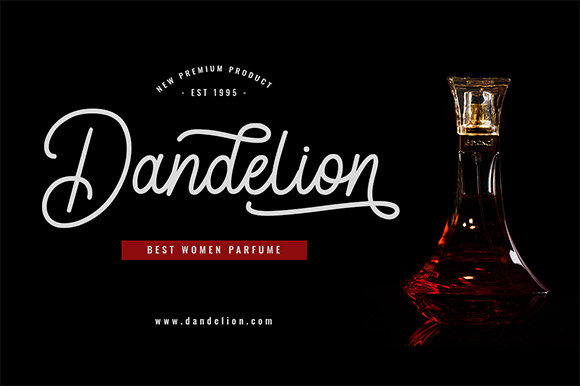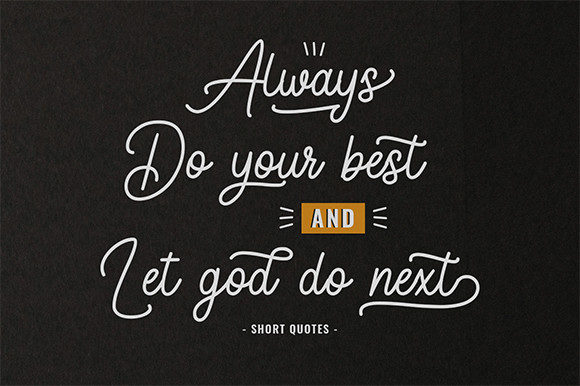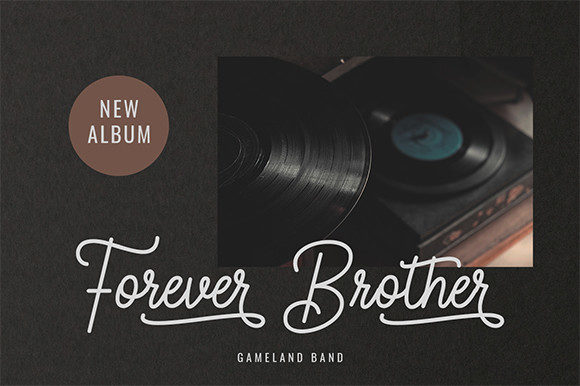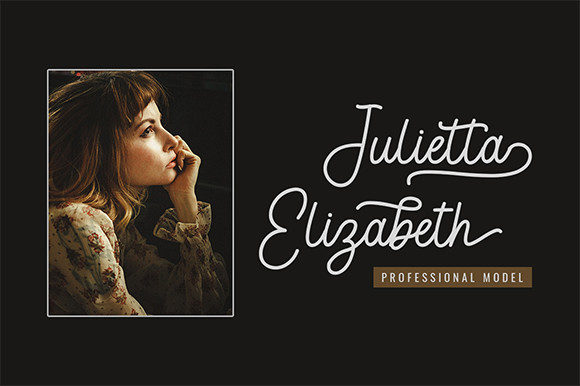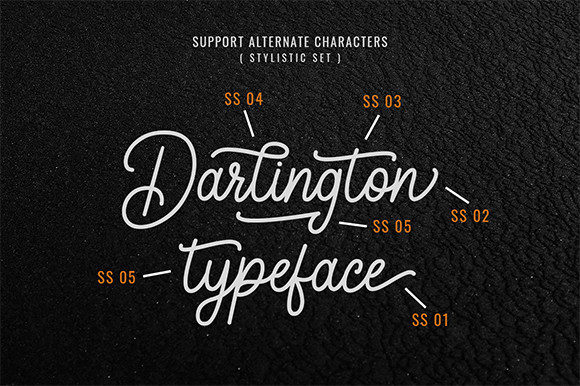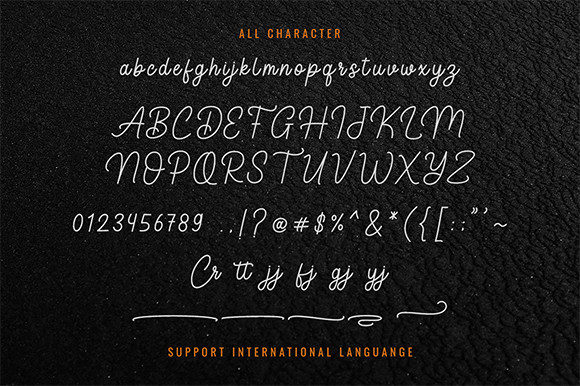
Discover the Elegance of Darlington Font: Elevate Your Designs with Luxury and Sophistication
In the world of typography, fonts play a crucial role in conveying the tone and aesthetic of a design project. Among the myriad of fonts available, Darlington Font stands out for its unique blend of elegance and sophistication. This beautiful light handwritten font is designed to add a luxury spark to any design, making it a perfect choice for creatives looking to elevate their work.
What Makes Darlington Font Special?
Darlington Font boasts a distinctive feel that sets it apart from other fonts. Its light, handwritten style exudes a sense of refinement and luxury, making it ideal for projects that require a touch of sophistication. Whether you’re working on a branding project, packaging design, or digital content, Darlington Font is sure to make a stunning impact.
Key Features of Darlington Font
- Unique Feel: Darlington Font’s distinctive style is characterized by its elegant and refined letterforms, which add a touch of luxury to any design.
- PUA Encoding: This font is PUA (Private Use Area) encoded, allowing easy access to all the amazing glyphs and ligatures. This feature makes it simple to incorporate the font into your design projects and take advantage of its full creative potential.
- Light Handwritten Style: The font’s light, handwritten style makes it perfect for designs that require a personal and elegant touch.
- Stunning Impact: Darlington Font is designed to make a lasting impression, adding a touch of sophistication and luxury to any design project.
Applications of Darlington Font
Darlington Font’s versatility makes it suitable for a wide range of design projects, including:
- Branding: Use Darlington Font to create a luxurious and sophisticated brand identity that sets your business apart.
- Packaging Design: Add a touch of elegance to your product packaging with Darlington Font, making your products stand out on store shelves.
- Digital Content: Elevate your digital content, such as blog posts, social media graphics, and email newsletters, with Darlington Font’s refined and elegant style.
- Stationery: Create beautiful and luxurious stationery, including business cards, letterheads, and invoices, with Darlington Font.
Tips for Using Darlington Font Effectively
To get the most out of Darlington Font, consider the following tips:
- Pair with Complementary Fonts: Combine Darlington Font with complementary fonts to create a harmonious and visually appealing design.
- Experiment with Colors: Take advantage of Darlington Font’s elegance by experimenting with different colors and textures.
- Use Ligatures and Glyphs: Make the most of Darlington Font’s PUA encoding by incorporating ligatures and glyphs into your design.
Darlington Font is a beautiful and elegant light handwritten font that is sure to add a luxury spark to any design project. With its unique feel, PUA encoding, and stunning impact, it’s the perfect choice for designers and crafters looking to elevate their work. Whether you’re working on a branding project, packaging design, or digital content, Darlington Font is a versatile and sophisticated choice that is sure to impress.